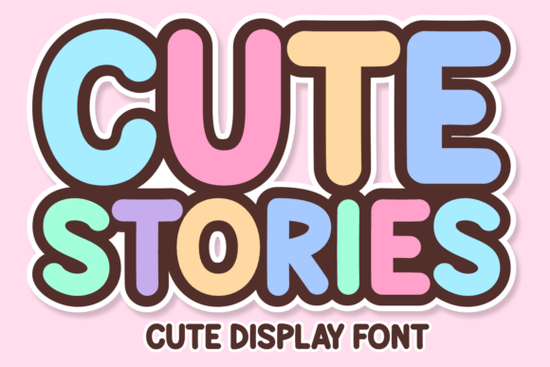
If you’ve been scrolling through font collections looking for something that feels both nostalgic and fresh, Cute Stories Font might be exactly what your next project needs. It’s not just another display typeface it’s got a bubbly personality that works especially well for kid-focused designs, playful branding, or anything that calls for a little retro charm with a modern twist. Think summer camp flyers, YouTube thumbnails that pop, or even t-shirt prints that make people smile at first glance.
What sets this font apart is how effortlessly it balances boldness with readability. The letters have that candy-store vibe rounded, cheerful, and just a touch groovy without sacrificing clarity. Whether you’re designing for print or screen, the shapes hold up well at different sizes, which isn’t always easy with fonts that lean into stylized forms.
Who should really consider using Cute Stories?
If you’re a small business owner selling kids’ products, a crafter making printable planners, or a POD seller designing quirky apparel, this font speaks your language. Its 70s-inspired curves and swashes feel fun but not childish, making it versatile enough for teen journals, boutique packaging, or even festival posters. And because it supports multiple languages, you don’t have to worry about character gaps if your audience spans beyond English speakers.
How does it compare to other playful display fonts?
It’s easy to get lost in Creative Fabrica’s massive font library. If you’ve tried Nebulan Star, you know that one leans more cosmic and sci-fi. Strong Bubble gives you thick, cartoonish outlines great for impact, less so for subtlety. Then there’s Marshmellow, which is soft and squishy, almost like melted sugar. Mario Font is obviously themed (and legally inspired), while Homegoing carries a warmer, handwritten sincerity.
Cute Stories sits comfortably between all of them not too cartoony, not too delicate, not tied to a specific theme. It’s the kind of font you can use across seasons and campaigns without it feeling repetitive or dated.
What kinds of projects work best with this style?
- Kids’ book covers or activity sheets the rounded letterforms feel safe and inviting.
- YouTube thumbnails or social media banners stands out without screaming.
- T-shirts, tote bags, or enamel pins holds detail well when printed small.
- Digital sticker packs or planner inserts plays nicely with pastels and neon palettes alike.
- Event posters for carnivals, bake sales, or craft fairs adds instant cheer.
One thing to note: because of its decorative nature, it’s best used for headlines, logos, or short phrases. Pair it with a clean sans-serif for body text something neutral lets Cute Stories shine without competing for attention.
Any tips for getting the most out of this font?
First, play with color. This font loves brights think cotton candy pink, sunshine yellow, or seafoam green. But don’t be afraid to try it in black or white on textured backgrounds; the retro outlines still read beautifully.
Second, experiment with layering. Since you get SVG and PNG versions, you can easily add drop shadows, gradients, or halftone textures underneath the letters to give them more dimension. In Procreate, try blending modes like “Multiply” or “Overlay” to let background art peek through gently.
And third, don’t overlook the swash characters. They’re tucked into the OpenType features or included as alternates, depending on your software. A single swash at the end of a word can turn a simple title into something that feels custom-made.
If you want to see how others are using it, check out Cute Stories Font on Creative Fabrica you’ll find real examples from designers who’ve turned it into everything from birthday invites to Etsy shop logos.
Before you download, here’s a quick checklist:
- ✅ Do you need a font that’s fun but still legible?
- ✅ Are you working on a project aimed at kids, teens, or casual audiences?